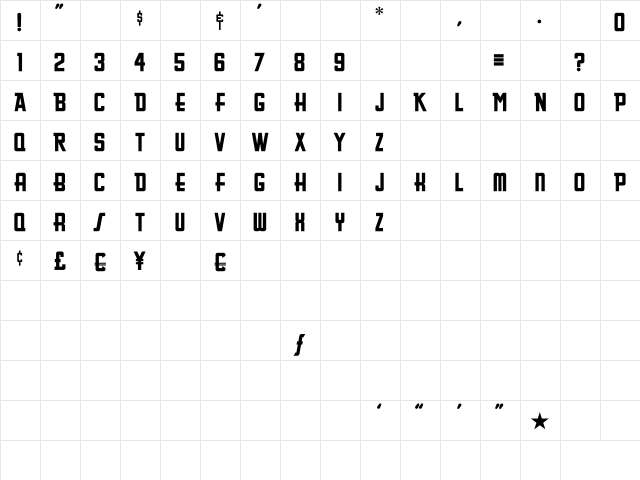
GreasySpoonMenu Regular Font Preview
GreasySpoonMenu Regular
Design Context for GreasySpoonMenu Typeface
GreasySpoonMenu offers clean, dependable letterforms without strong stylistic allegiance, making it a practical choice for designers who need flexibility.